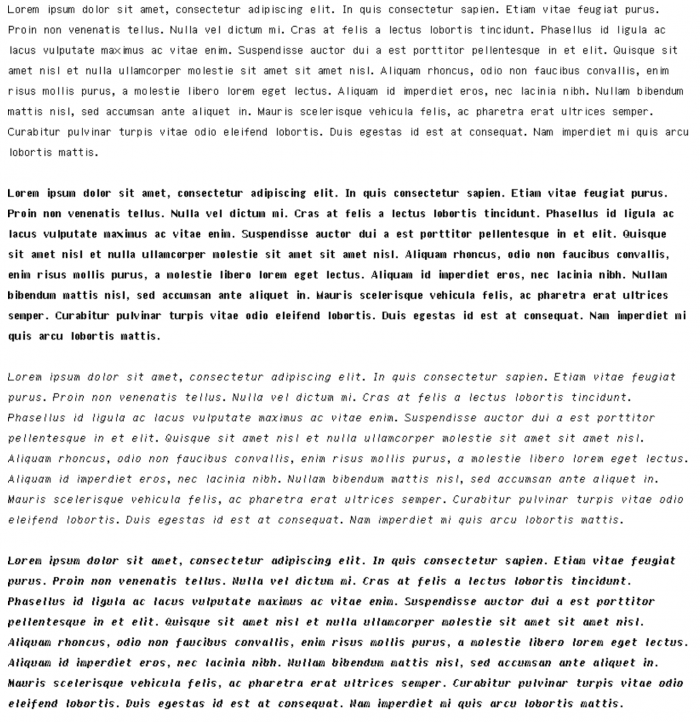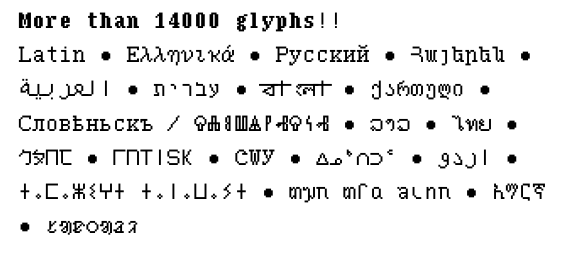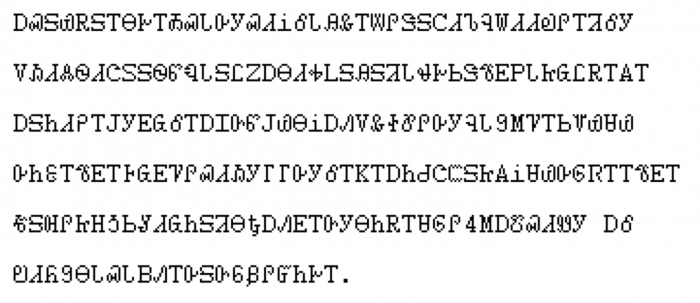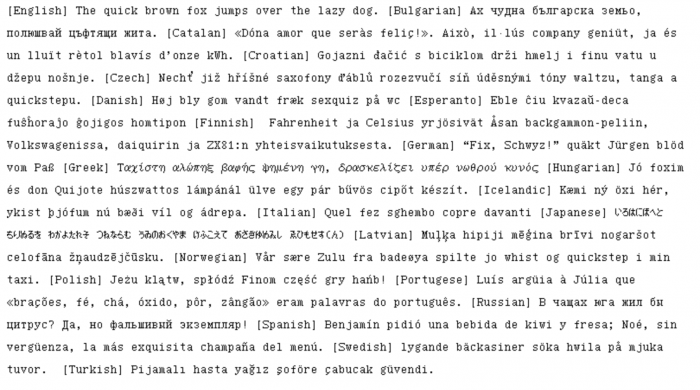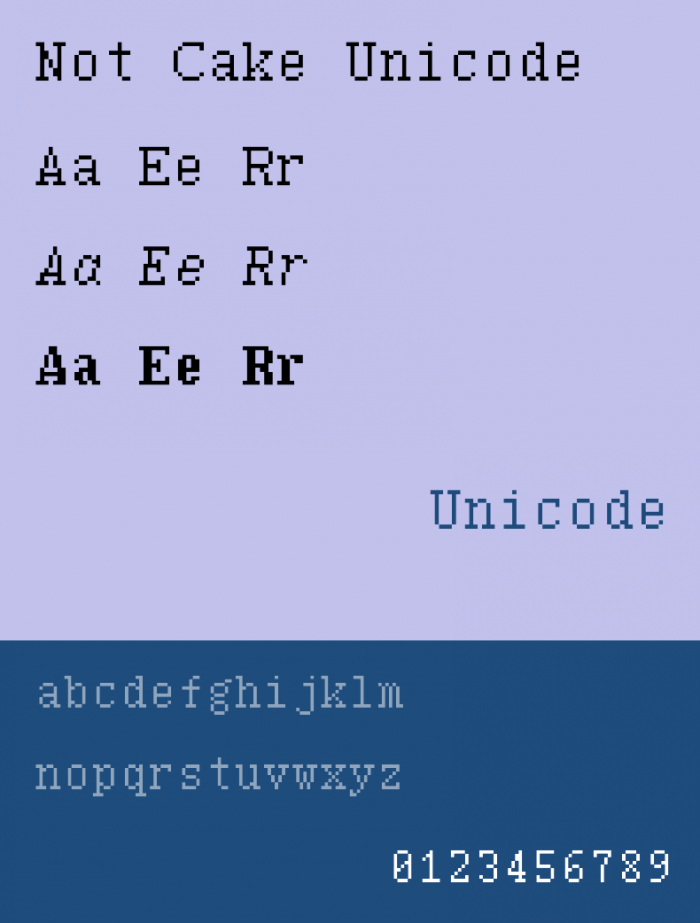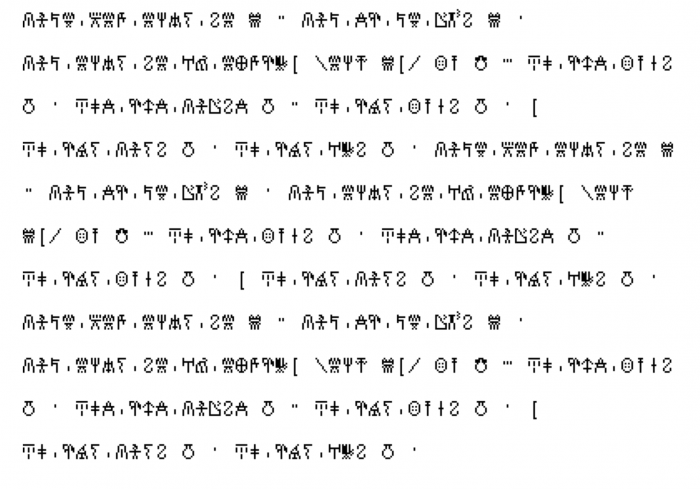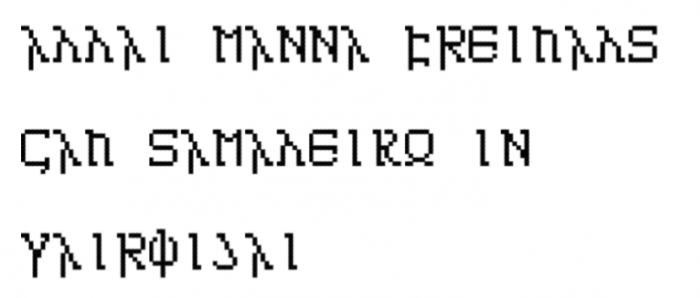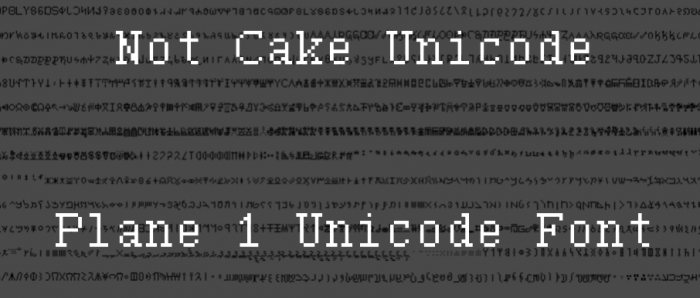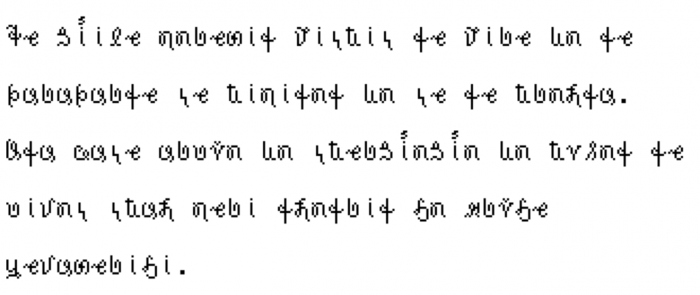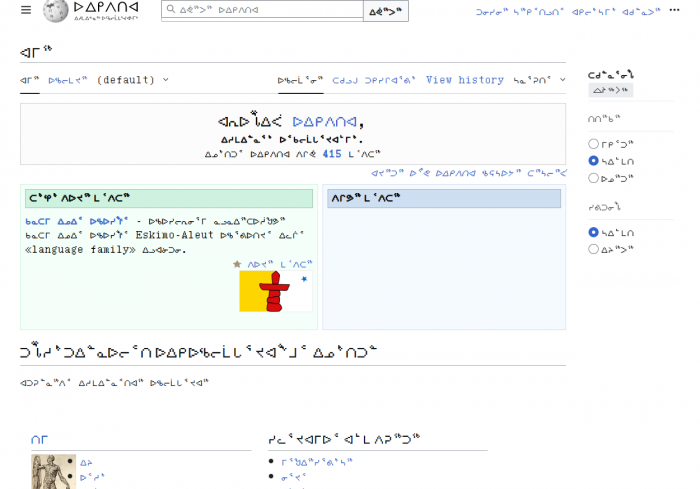
Later, I will make Not_Cake Shidinn, Not_Cake Unifon, Not_Cake Serif Proportional and Not_Cake Klingon.
My goal is to create as much Unicode characters as possible in a small grid. (But not over 65535)
Now 23536 Glyphs
This is the font which can support many languages including the modern and the historical ones.
This is a Unicode font made by me. It can support more than 19000 characters. Version 16.0.0, Unicode 16.0
Unicode 17.0 Characters will be updated in September 2025.
In this font, the lowercase dum is displayed correctly.
Some mac devices cannot display this character properly.
Added adlam
also added syriac
fixed multiocular o
added thaana
fixed cyrillic dzzhe (Ԫ ԫ)
added bengali
Some vedic extension symbols have been added in the font
Add Georgian
math symbols are finishing
finished arabic extensions
Vai Language
Japanese pangram
Cherokee
Linear B
Warang Chiti (Ho language)
New one
Gothic - Recreated in a serif style
Vithkuqi
Better Rendering!
After fixing, the UCAS letters look better.
This is the old font Unicofonte. Although it can support UCAS, some glyphs are incorrect, for example the sh- series.
You can refer to the Unicode charts if you're unsure what a character should look like. It's a pretty useful resource since many of the newly defined characters aren't supported in a lot of systems.
I use Unifont and Unifont Upper. It is a fallback font
Fixed Cedilla
Rename to Unicode 17.0.0 and add everything on Unicode 17.0